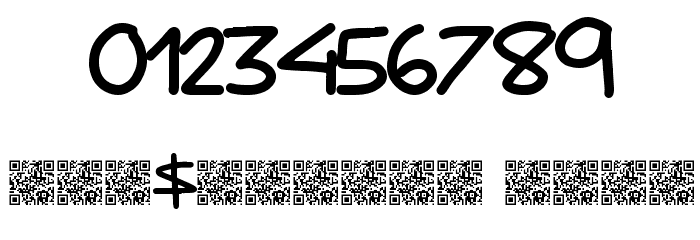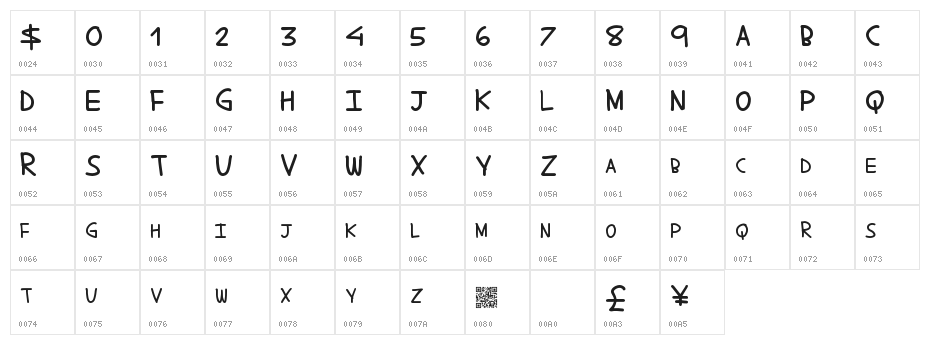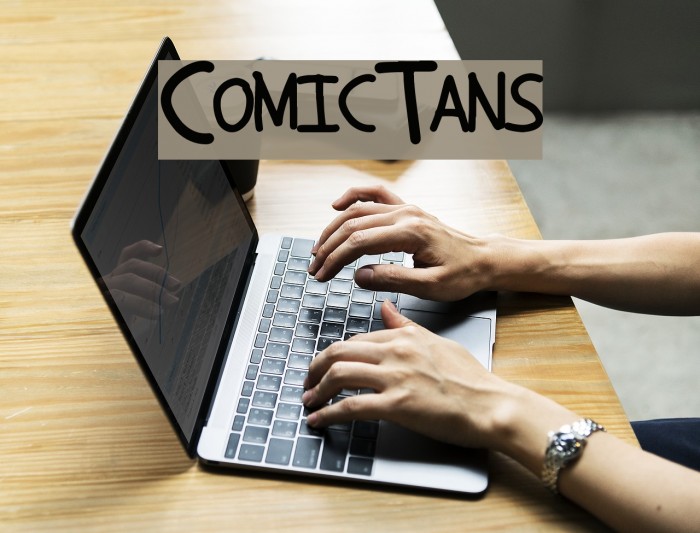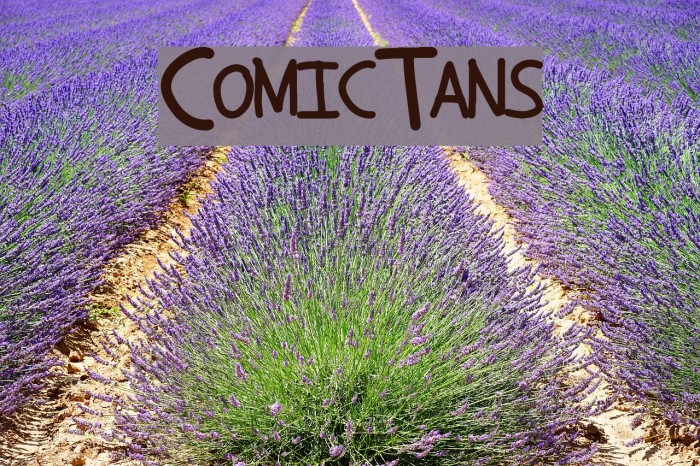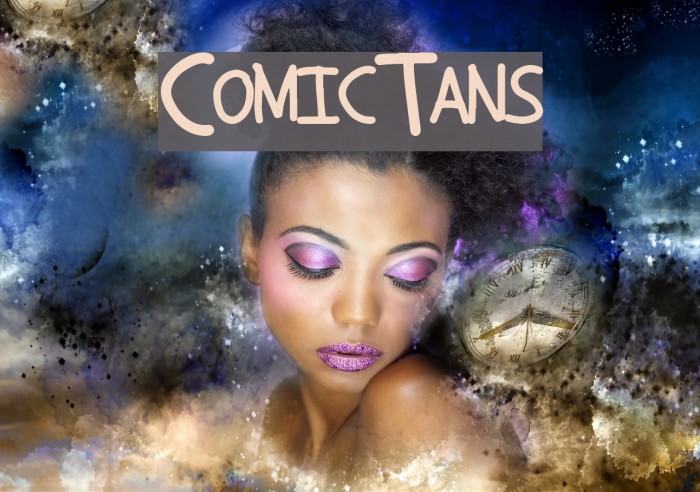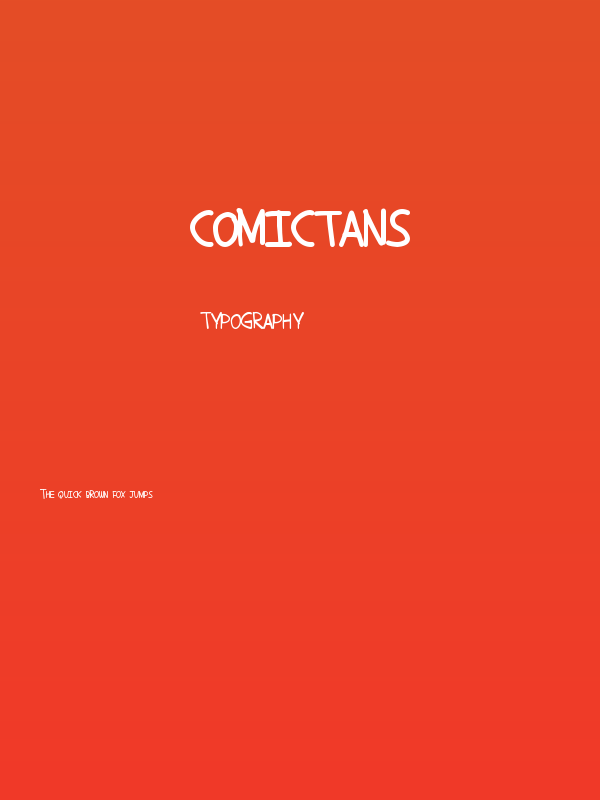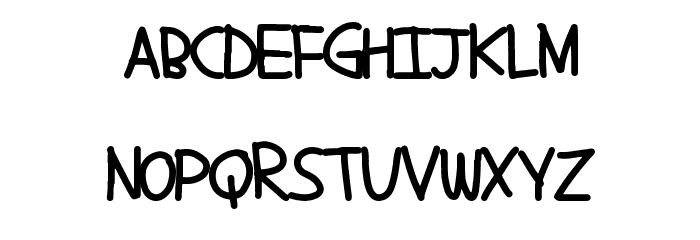
ComicTans Font
ComicTans Description
This playful and informal font features a handwritten style with rounded edges and a casual appearance. The letters are slightly irregular, giving it a friendly and approachable feel. It is characterized by its bold strokes and a whimsical touch, making it ideal for projects that require a light-hearted and fun aesthetic. The font maintains consistent thickness throughout, ensuring readability while adding a touch of personality to the text. Its unique style makes it suitable for creative and informal applications, where a relaxed and engaging tone is desired.
| Proposed Projects | Ideal for comic strips, children's books, casual invitations, and playful branding. |